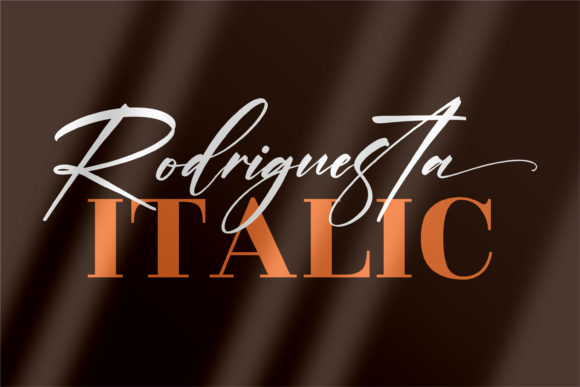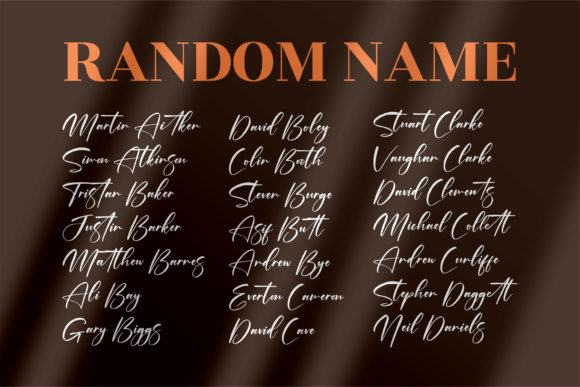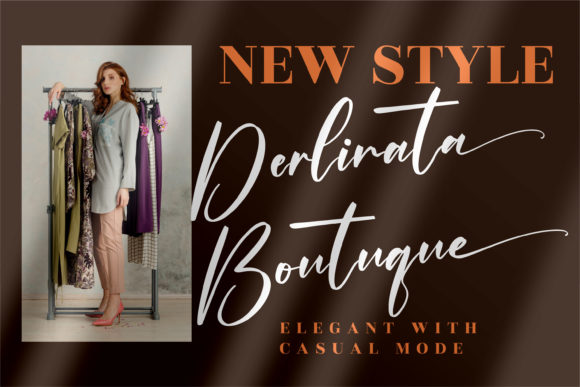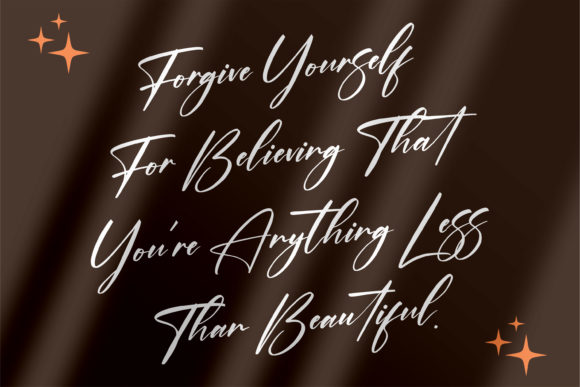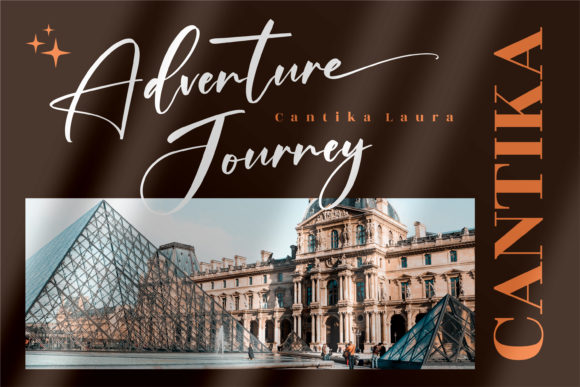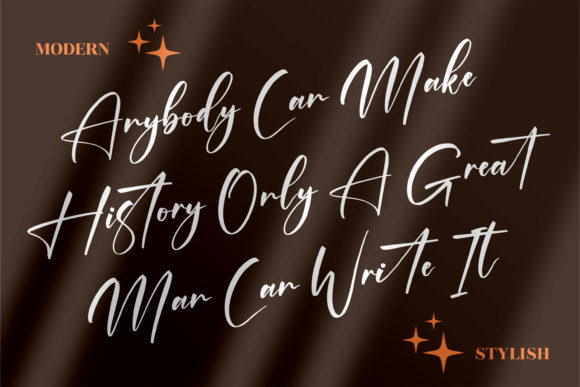
Introduction to Rodriguesta Font
Have you ever been working on a creative project, pouring your heart and soul into it, only to realize that the typography is holding you back? You want to convey a sense of luxury and elegance, but the fonts just don’t seem to fit the bill. That’s where the Rodriguesta Font comes in – a modern and chic script font that exudes premium finish and stylish flair.
As a designer, you’re always on the lookout for that special something that elevates your design to the next level. The Rodriguesta Font is that something. With its transparent background and high-quality design, it’s the perfect addition to any creative project. And the best part? It’s available for free download, making it an invaluable design resource for designers of all levels.
Key Features of Rodriguesta Font
- High-quality design with a unique and creative aesthetic, perfect for a wide range of creative projects.
- Features a transparent background, allowing for easy customization and flexibility in design.
- Designed to be scalable, with high resolution support up to 1024 x 1024 pixels, ensuring crisp and clear typography in any size.
- Includes a comprehensive character set, including uppercase and lowercase letters, numbers, and punctuation marks.
- Perfect for use in creative projects, such as logos, branding, and typography-based designs, where a unique and eye-catching font is required.
Honest Review: Rodriguesta Font
I recently had the chance to work with the Rodriguesta Font in a creative project, and I must say, it was a delightful experience. This font has a lot to offer, and I’d like to share my honest thoughts about it.
- ✨ High-quality design: The Rodriguesta Font boasts a sleek and modern design that’s perfect for any creative project.
- ✨ Transparent background: The transparent background feature allows for seamless integration with any design, making it a valuable resource for designers.
- ⚠️ Limited language support: Unfortunately, the Rodriguesta Font only supports a limited number of languages, which might be a concern for designers working on multilingual projects.
- ⚠️ Not ideal for small text: While the font looks great in larger sizes, it can be a bit tricky to read in smaller text sizes, which might affect its usability.
Overall, I’m impressed with the Rodriguesta Font. Its high-quality design, transparent background, and free download make it a valuable resource for designers. While it has some limitations, I believe it’s worth considering for your next creative project.
For the best results, use the Rodriguesta Font in conjunction with a high quality design resource, such as a professional template or graphic. This will help to ensure a cohesive and visually appealing design. Additionally, consider using the font in a creative project, such as a logo or branding design, to add a touch of sophistication and elegance.
The Rodriguesta Font is particularly useful for creating a free download design, such as a printable art or a digital invitation. It can also be used to add a touch of whimsy and personality to a creative project, such as a social media graphic or a blog post. With its transparent background and high quality design, the Rodriguesta Font is a valuable design resource for any creative project.